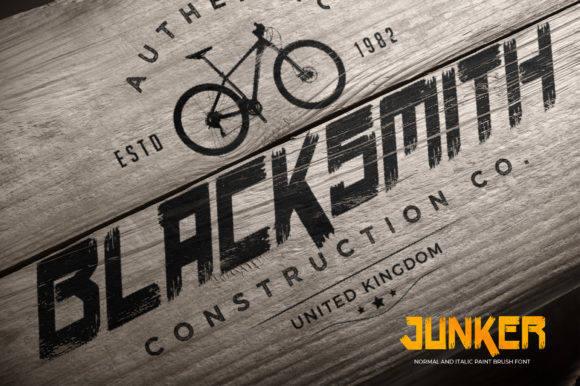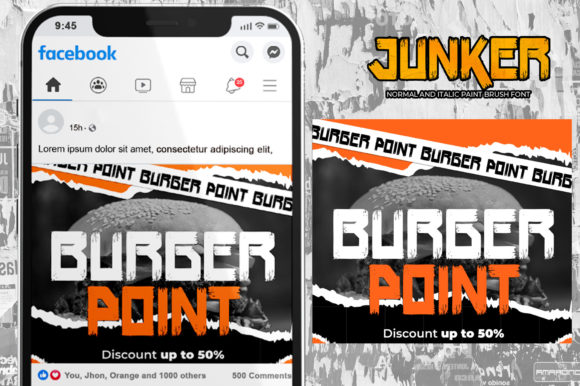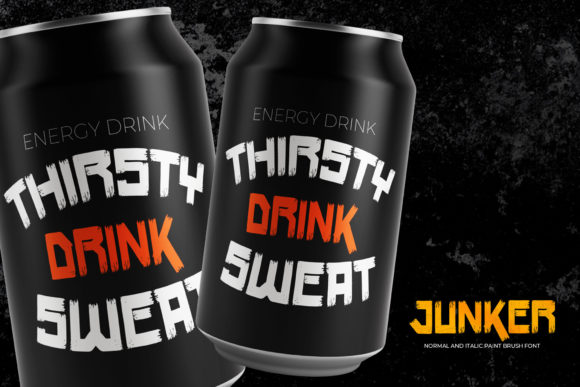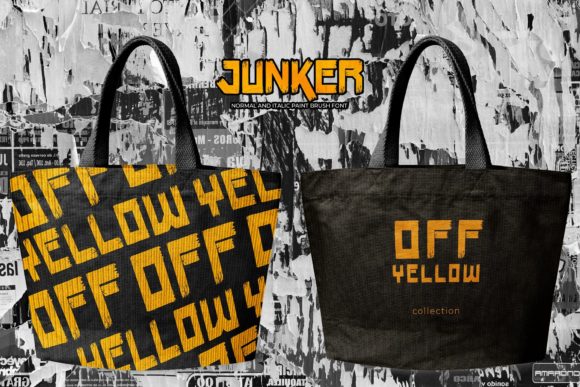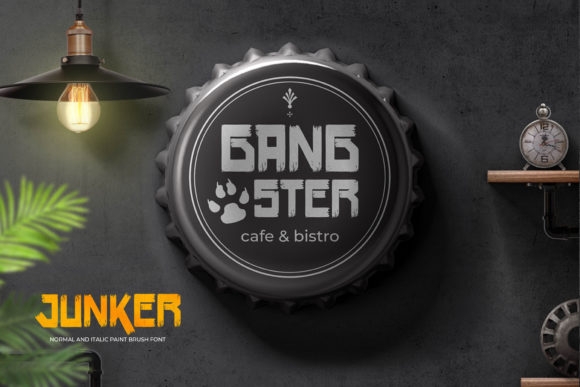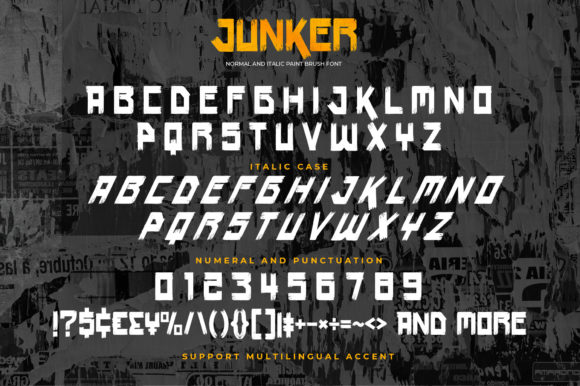
Introduction to Junker Font
Have you ever stumbled upon a font that instantly sparks your creativity? For designers, it’s that magical moment when a perfect typeface emerges, elevating our ideas to new heights. I recall a late-night design session, where I was working on a client’s branding project. The goal was to create a unique logo that would stand out in a crowded market. That’s when I discovered the Junker Font – an italic paint brush font with a natural style and dramatic movement.
What caught my attention was the Junker Font’s ability to add a touch of sophistication and elegance to any design. Its high-quality texture and transparent background make it an ideal design resource for creative projects. Whether you’re working on a logo, printed quotes, or product packaging, the Junker Font is sure to deliver.
Key Features of Junker Font
Honest Review: Junker Font
As a designer, I’m always on the lookout for high-quality design resources to elevate my creative projects. Recently, I stumbled upon the Junker Font, and I’m excited to share my honest review with you.
- ✨ Unique and bold style: The Junker Font has a distinctive look that can add a touch of edginess to any design project.
- ⚠️ Limited font weights: The Junker Font only comes in a few font weights, which might limit its versatility in certain design contexts.
- ⚠️ Not suitable for body text: Due to its bold and playful nature, the Junker Font might not be the best choice for large blocks of body text.
Overall, I think the Junker Font is a great addition to any designer’s toolkit. While it may have some limitations, its unique style and free availability make it a valuable resource for creative projects.
Common Use Cases for Junker Font
Junker Font is ideal for creative projects such as:
1. Social media graphics and advertisements.
2. Business logos and branding materials.
3. Infographics and educational materials.